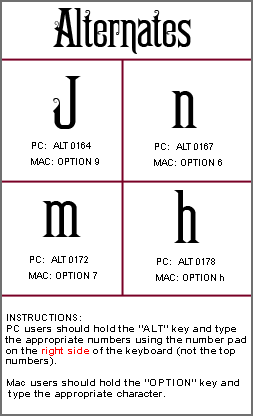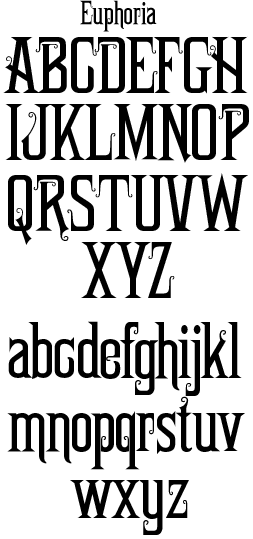
An authentic pre-1900's typeface used primarily for letterheads and billheads, but also used on tins and other forms of advertising.
Includes numbers, full punctuation & accent characters